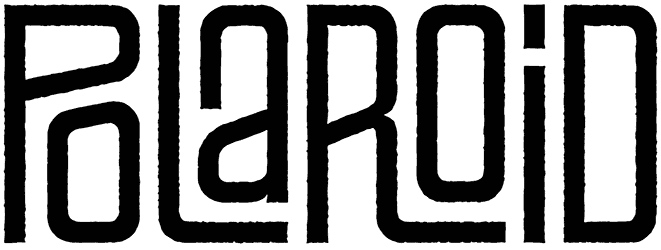
Polaroid Font
You shouldn’t have to worry about how to make your design appear modern and trendy. That’s what you’ve got Polaroid for. Your text is bound to be well-received by the audience, all thanks to the digital look promised by this tech font and its cool characters.
Therefore, next time you’re approached by a client from a technology company or need a logo for a sci-fi movie or space game, let this awesome futuristic font take care of that for you.